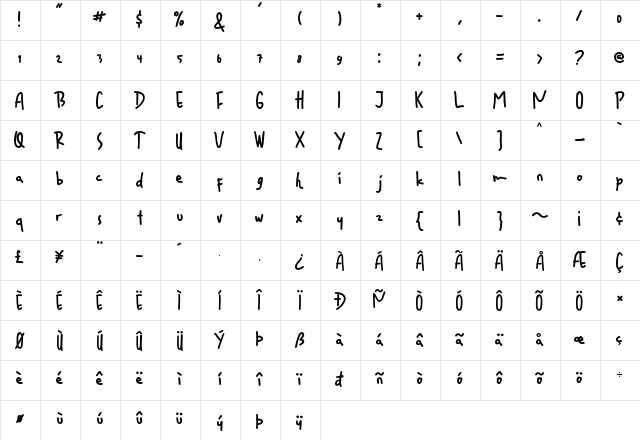
Raqilla Kids Regular
Design Context for Raqilla Kids Typeface
Raqilla Kids trades formality for fun, with bouncy, characterful letterforms that bring warmth and energy to any project.
Font Pairing: Pairs well with a rounded or humanist sans for body copy, maintaining the friendly tone without relying on Raqilla Kids to carry extended reading.
Pro Tip: Avoid using Raqilla Kids for long passages of text — it works best for headlines, labels, and short calls to action.